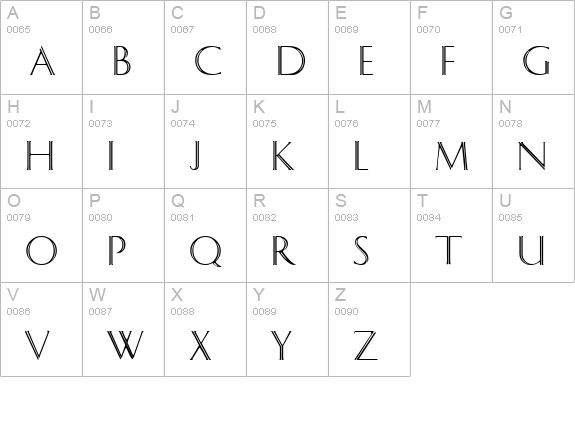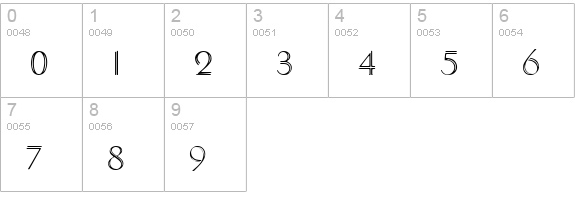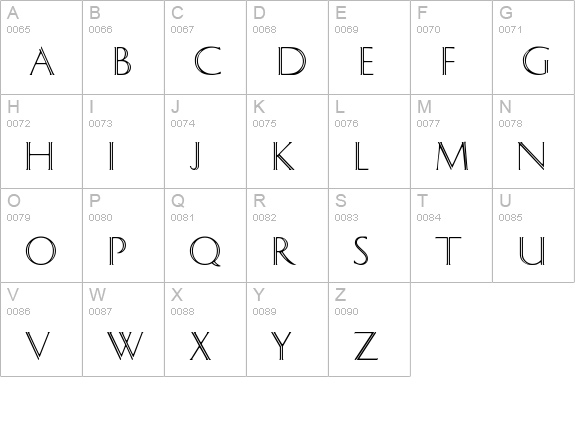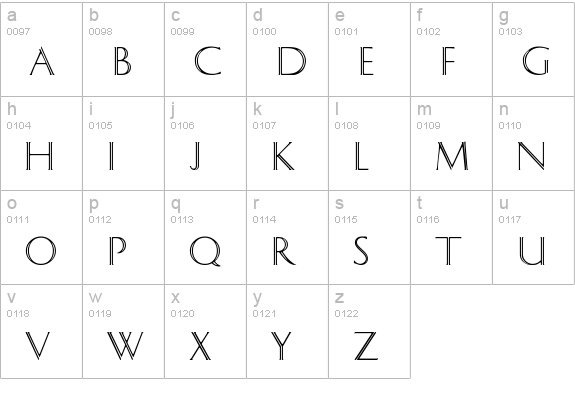
Caesar Regular is the standard, neutral variant in the Caesar typeface family \xE2\x80\x94 well suited to general body text, paragraphs, and standard typographic work.
Caesar Regular is a classic and timeless font that exudes elegance and sophistication. Designed with precision and attention to detail, this font captures the essence of traditional typography while adding a modern twist. Its clean and legible letterforms make it perfect for a wide range of design projects, from branding and logo creation to editorial layouts and signage. With its balanced proportions and graceful curves, Caesar Regular brings a sense of harmony and balance to any composition. The carefully crafted letter shapes ensure optimal readability, allowing your message to be effortlessly communicated to your audience. Whether used in print or on screen, this font maintains its clarity and impact, making it a versatile choice for any creative endeavor. What sets Caesar Regular apart is its accessibility. This font is freely available to download at FontsMarket.com, allowing designers, artists, and enthusiasts to easily incorporate it into their work. By making it accessible to all, Caesar Regular encourages creativity and collaboration, empowering individuals to bring their visions to life. Whether you are working on a personal project or a professional assignment, Caesar Regular offers a timeless and versatile typeface that will elevate your designs to new heights. Its classic charm, combined with its modern adaptability, ensures that your creations will stand the test of time. Download Caesar Regular today from FontsMarket.com and unlock the potential of this stunning font.